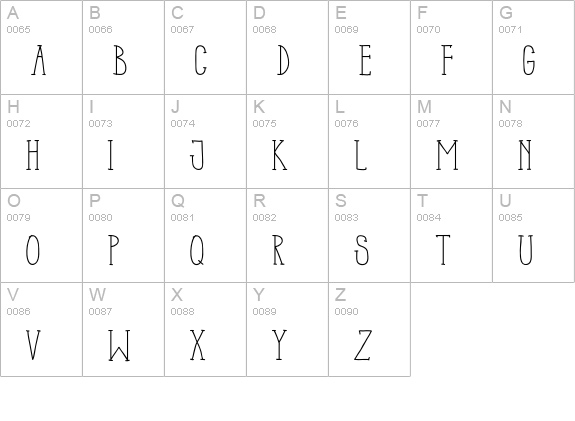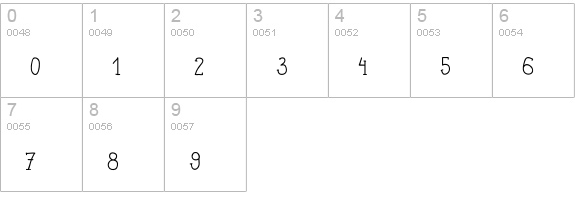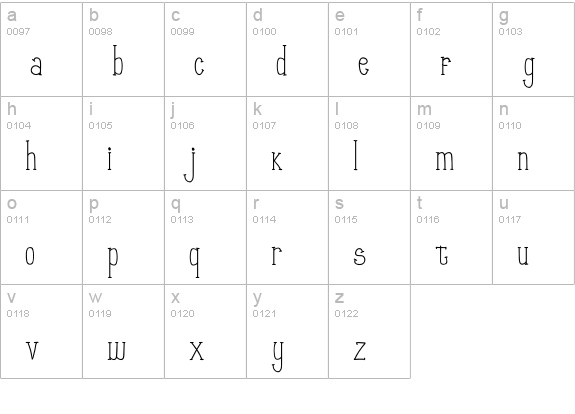
CoupCake Font Details
CoupCake font is a delightful and whimsical typeface that exudes a sense of fun and playfulness. Its playful curves and unique design make it perfect for a variety of creative projects, from party invitations to children's books. The font features a range of charming characters that add a touch of sweetness to any design. Best of all, CoupCake font is available for free download at FontsMarket.com. This means you can easily add a touch of whimsy to your projects without breaking the bank. Whether you're a designer looking to add a fun element to your work or just someone who loves unique fonts, CoupCake is sure to bring a smile to your face. Download it today and let your creativity soar with this charming and free font!